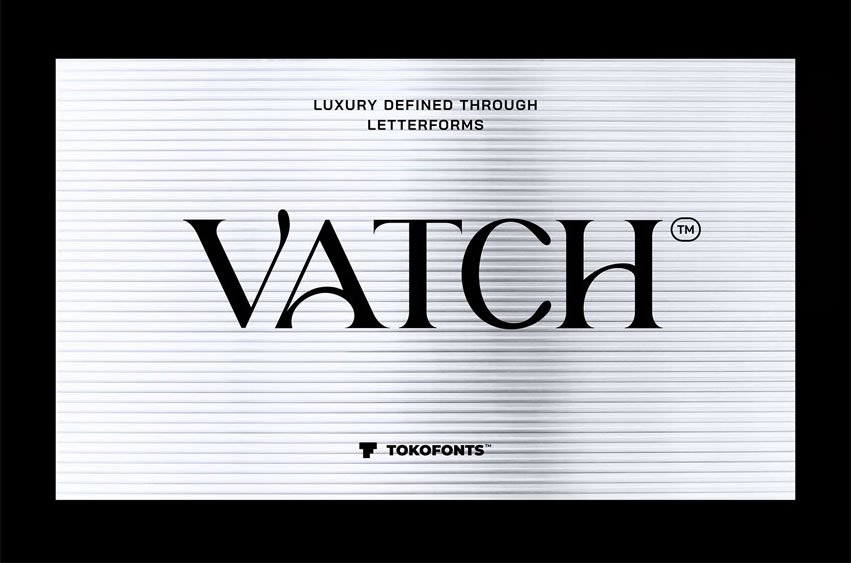
Vatch Font is a modern and elegant display typeface crafted to deliver a refined and sophisticated look for logo and branding design. With its clean and minimal structure, this font draws inspiration from timeless styles like helvetica, montserrat, and futura, combining classic balance with a contemporary edge. Its distinctive letterforms bring a sense of luxury and precision, making it perfect for fashion brands, corporate identities, and high-end visual concepts.
Designed for versatility, Vatch font adapts seamlessly across various creative needs, from sleek corporate layouts to more playful kids-oriented designs. The clean and minimal approach ensures excellent readability while maintaining a strong display presence, allowing it to stand out in logos and modern branding systems. As part of a new generation of fonts, Vatch offers a perfect blend of elegance, clarity, and style for designers seeking a powerful visual identity.